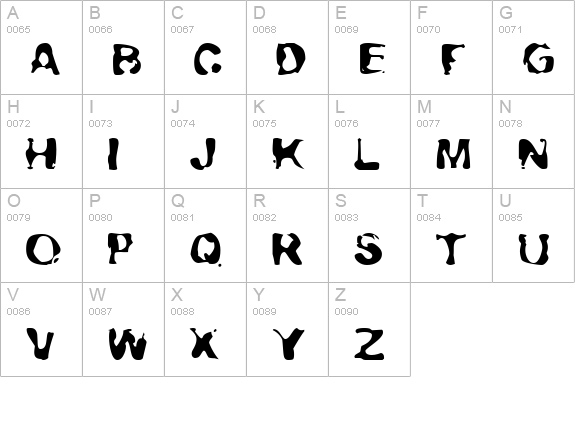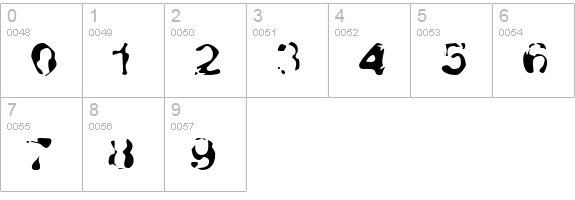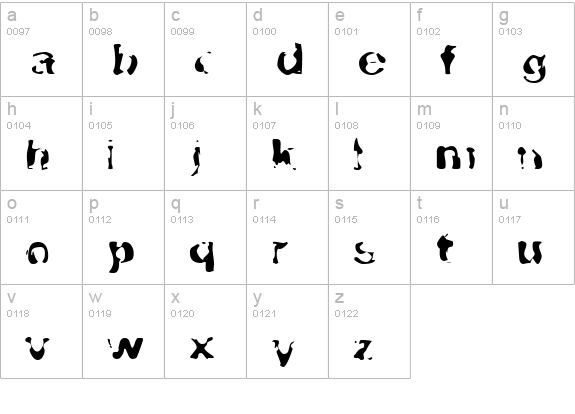
Lava-Lava Font Details
Introducing Lava-Lava, a visually captivating font that exudes a fiery intensity and a unique sense of style. This font is the perfect blend of modern design and a touch of ruggedness, making it the ideal choice for those seeking to add a bold and impactful statement to their projects. Lava-Lava is characterized by its exquisite detailing and sharp edges, reminiscent of molten lava flowing effortlessly. Each letter is meticulously crafted, showcasing an intricate fusion of curves and angles, resulting in a font that is both visually stunning and highly readable. With its versatility, Lava-Lava is suitable for a wide range of design projects. Whether you're creating eye-catching logos, attention-grabbing headlines, or stylish branding materials, this font will undoubtedly elevate your creations to new heights. One of the most remarkable aspects of Lava-Lava is that it is available for free download exclusively at FontsMarket.com. This means that you can easily access and utilize this remarkable font without any cost or hassle. FontsMarket.com offers a seamless experience, allowing you to effortlessly explore and acquire a vast range of fonts, including the mesmerizing Lava-Lava. Don't miss out on the opportunity to enhance your designs with the captivating allure of Lava-Lava. Download this font today and unleash your creativity, effortlessly captivating your audience's attention with its fiery charm.